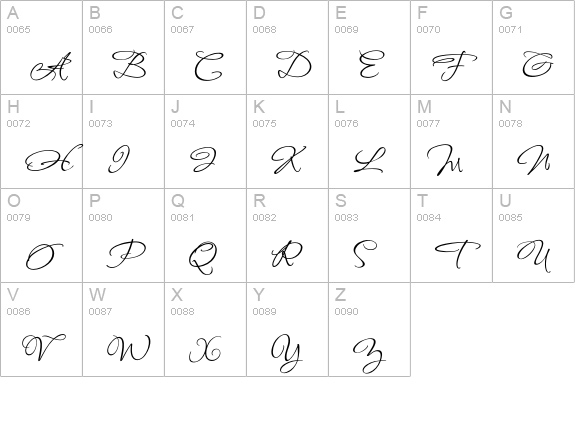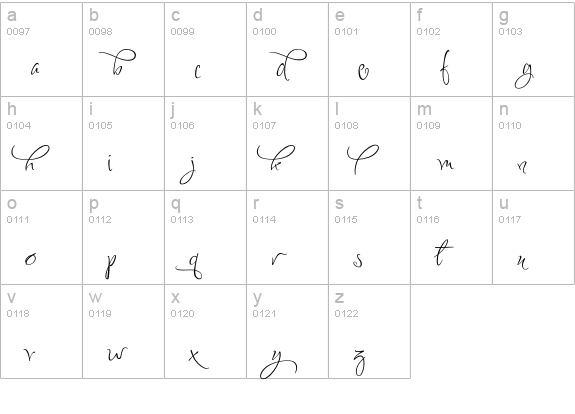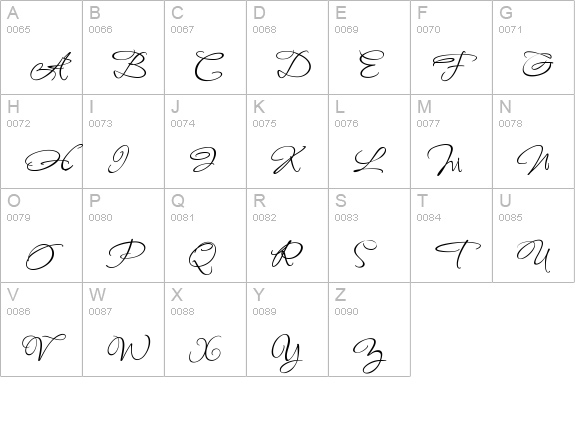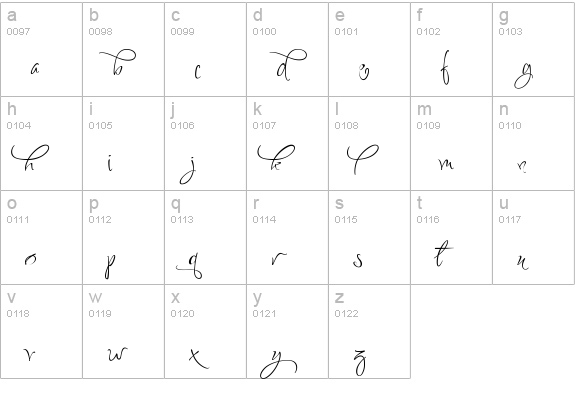
FugglesNine Font Details
FugglesNine font is a charming and versatile typeface that exudes a sense of elegance and sophistication. With its unique blend of modern and vintage elements, this font is perfect for adding a touch of class to any design project. Its clean lines and stylish curves make it ideal for a wide range of applications, from branding to editorial design. And the best part? FugglesNine font is available for free download at FontsMarket.com. So whether you're a seasoned designer looking to expand your font library or a beginner searching for the perfect typeface for your next project, FugglesNine font has got you covered. Download it today and unleash your creativity with this exquisite font that is sure to make a lasting impression.